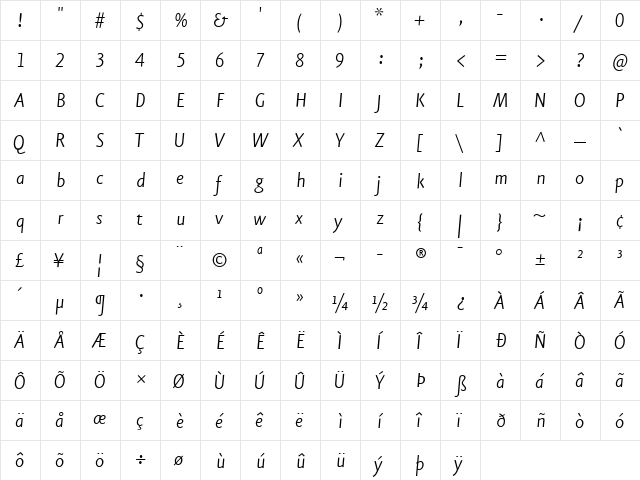
Eureka Sans Light Italic
| Foundry | Peter Bilak, published by Fontshop International for the FontFont library |
Design Context for Eureka Sans Typeface
Eureka Sans is a composed and adaptable typeface that performs quietly and consistently across a wide range of design contexts. The dynamic lean of this cut emphasises speed and emphasis in any layout. Its slender proportions lend an understated elegance to any composition.
Pro Tip: Try Eureka Sans for annotation and caption copy alongside an upright companion — the contrast in angle creates a dynamic but ordered typographic system.